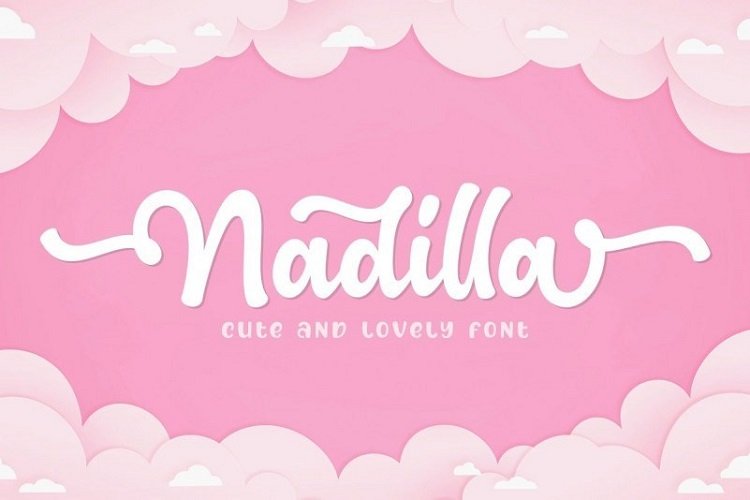
Nadilla Font
Nadilla is equipped with Contextual Alternates and Ligatures that ad variety in the flow and if that isn’t enough there’s Stylistic Alternates for all characters and Swash Alternates for lowercase.
Nadilla is an outstanding display font that works great for any display use from branding to packaging to logotype.